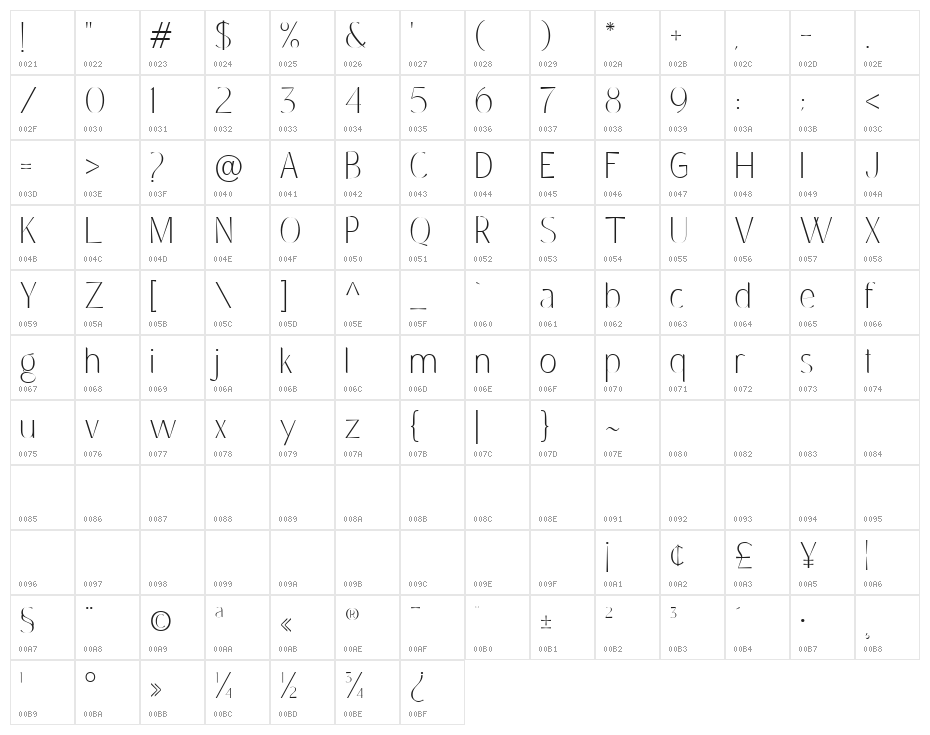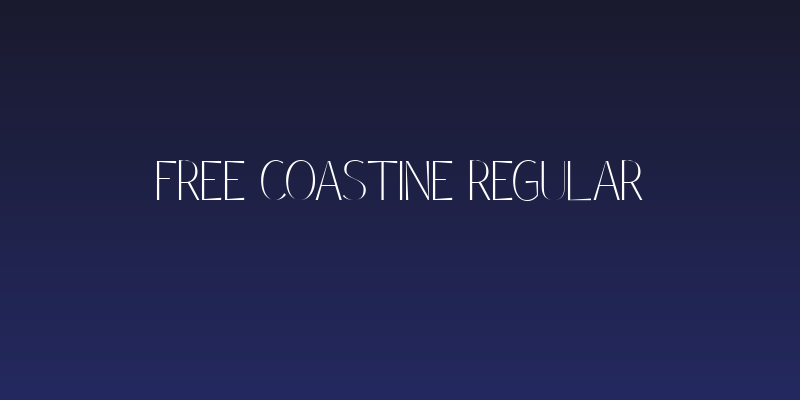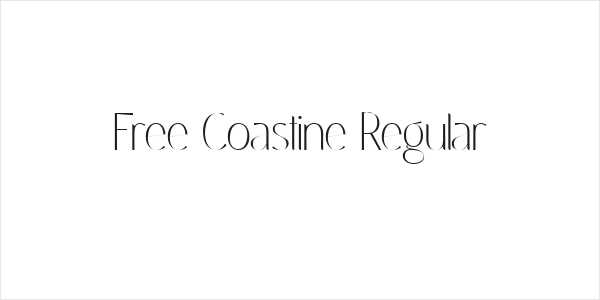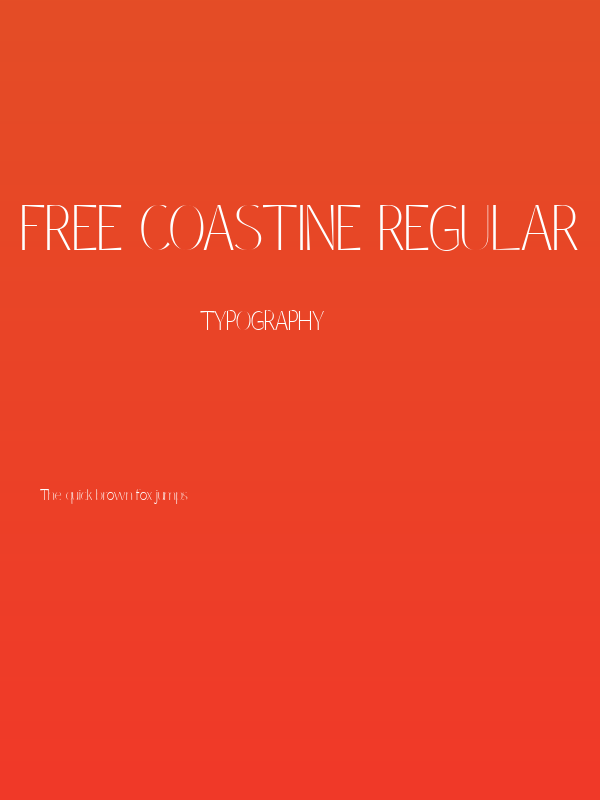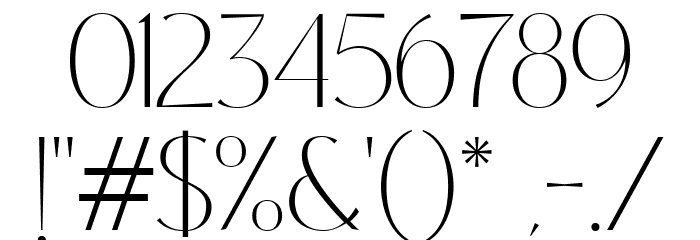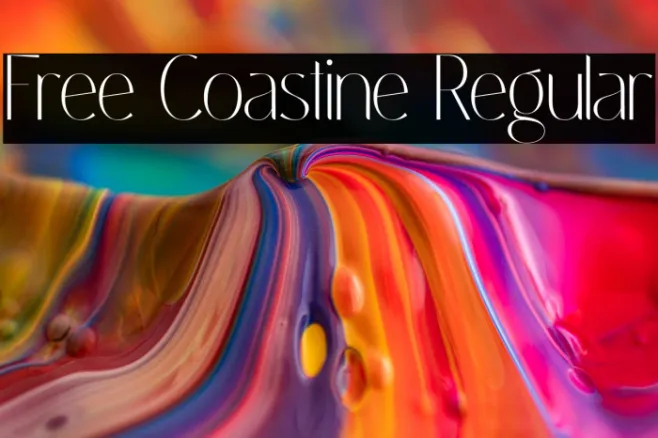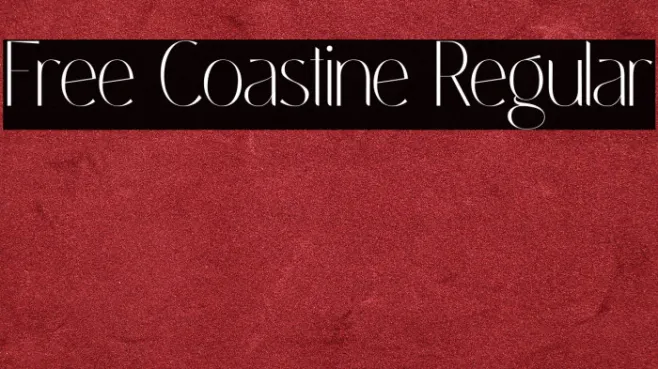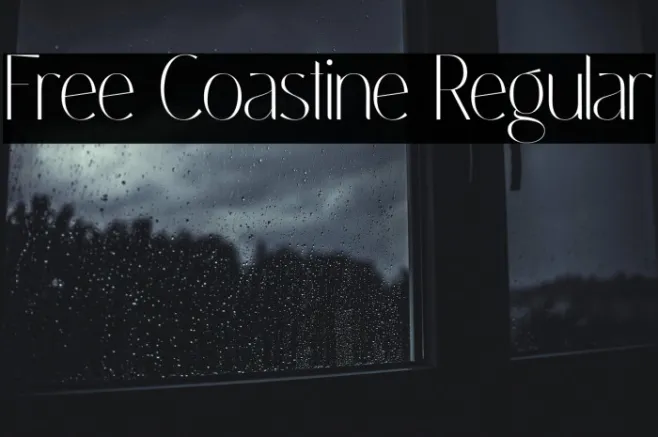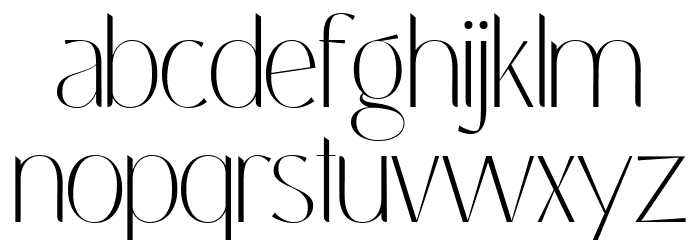
Free Coastine Regular Font
Free Coastine Regular Description
This font features a sleek and modern design with tall, narrow characters that exude elegance and sophistication. The uppercase letters are particularly elongated, giving a sense of height and grace. The lowercase letters maintain a consistent style, with smooth curves and clean lines. The numerals are distinct and easy to read, complementing the overall aesthetic. Special characters are well-integrated, maintaining the font's cohesive look. The thin strokes and minimal contrast between thick and thin lines contribute to its refined appearance, making it suitable for contemporary design projects.